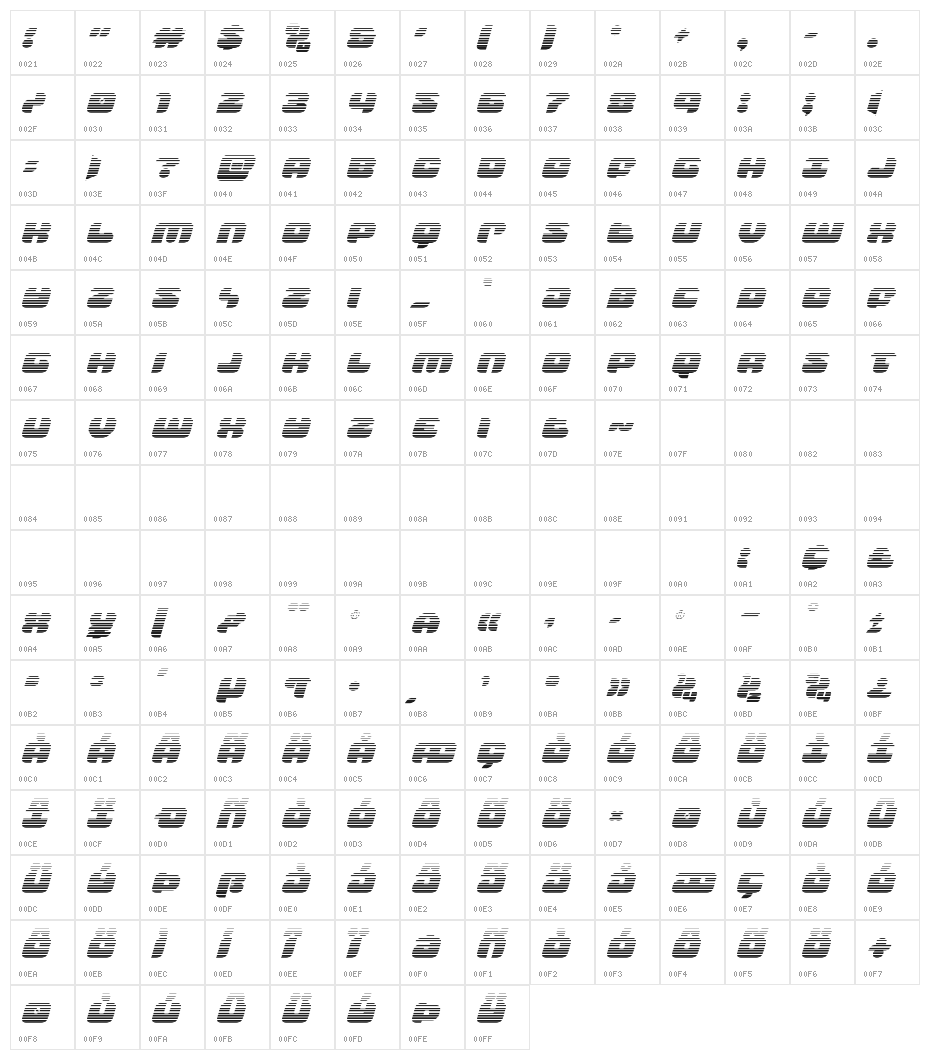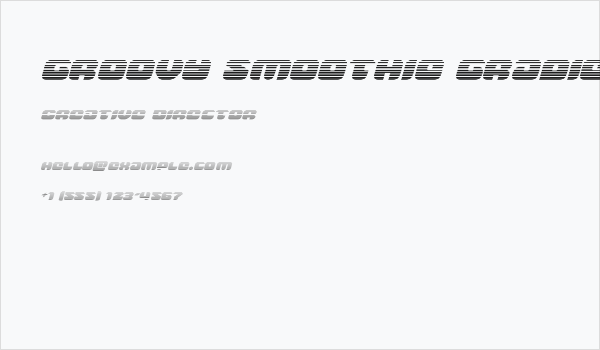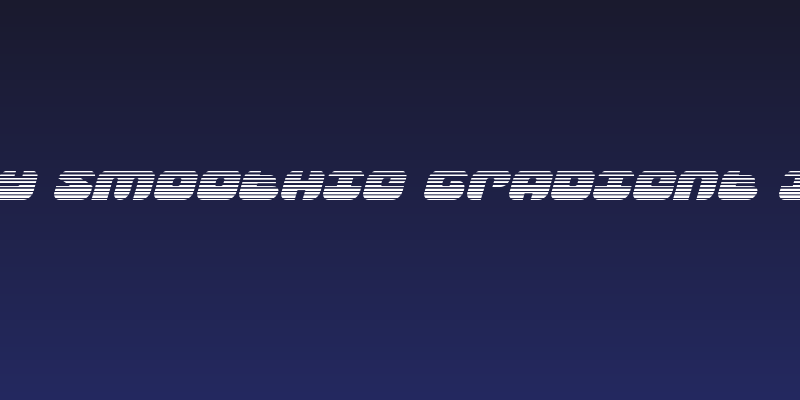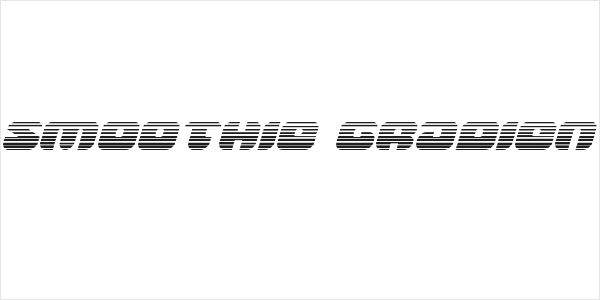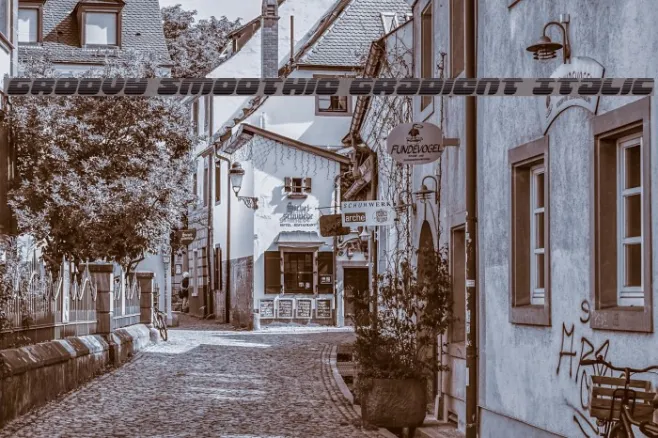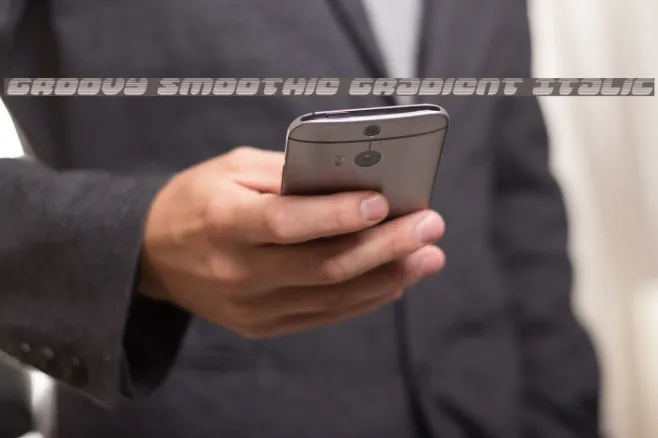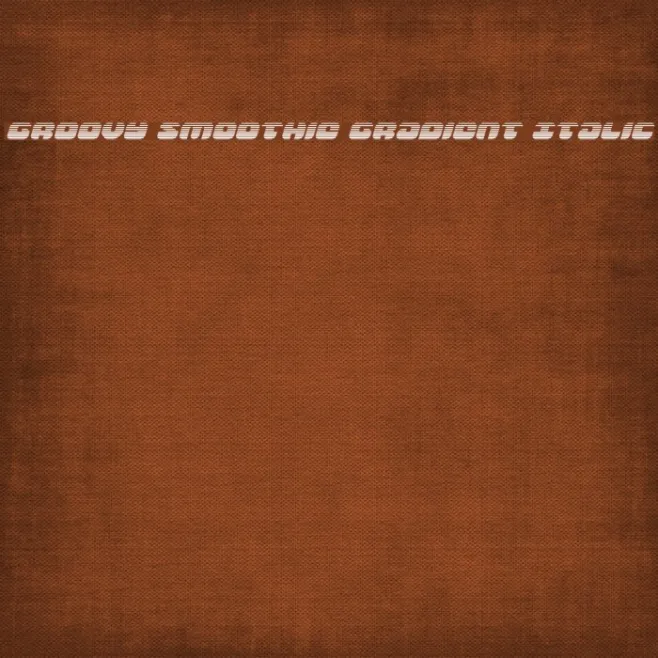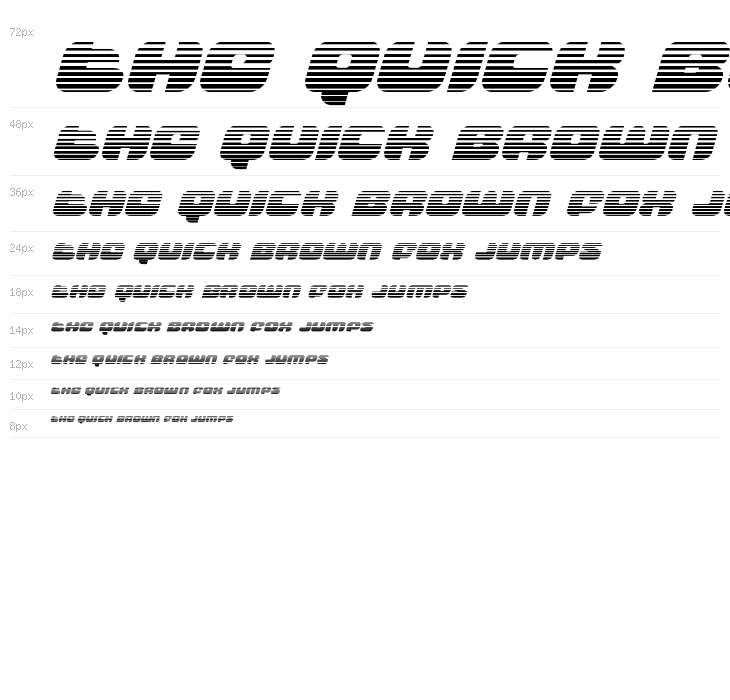
Groovy Smoothie Gradient Italic Font
Groovy Smoothie Gradient Italic Description
This font features a bold, italicized style with a unique gradient effect created by horizontal lines running through each character. The letters are wide and have a futuristic, dynamic appearance, making them stand out with a sense of motion. The design is consistent across uppercase, lowercase, numbers, and special characters, maintaining a cohesive look. The horizontal lines give the font a textured, layered look, adding depth and interest. This font is ideal for projects that require a modern, edgy feel, such as tech-related branding or contemporary art displays.
| Use Case | Logos, Headlines |
| Proposed Projects | Ideal for tech branding, modern art displays, and futuristic themed designs. |